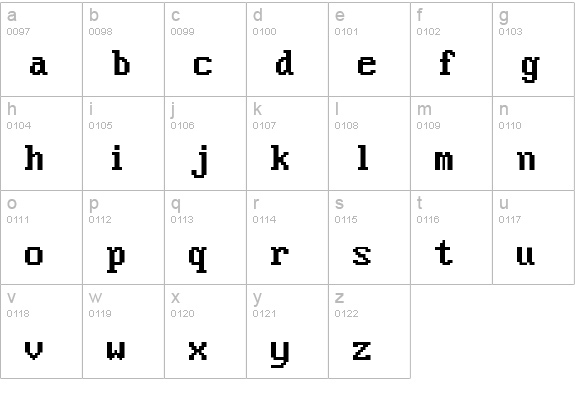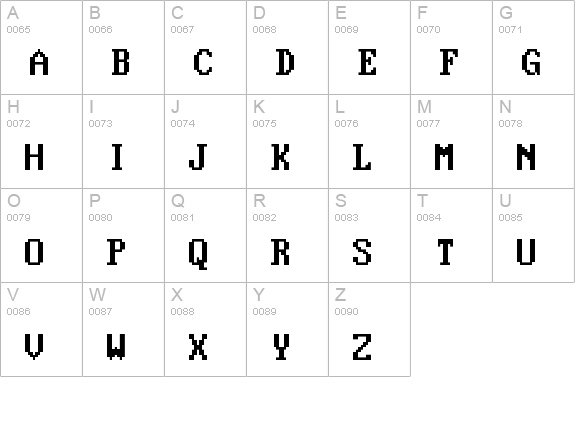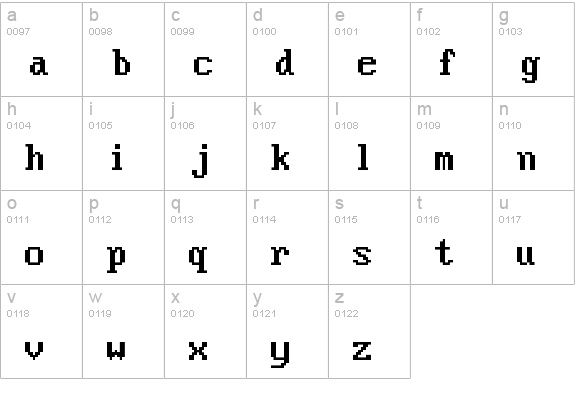
Video Regular is the standard, neutral variant in the Video typeface family \xE2\x80\x94 well suited to general body text, paragraphs, and standard typographic work.
Video Regular font is a modern and versatile typeface that adds a touch of elegance and sophistication to any design project. With its clean lines and balanced proportions, this font is perfect for creating eye-catching headlines, logos, and branding materials. One of the best features of Video Regular font is that it is available for free download at FontsMarket.com. This means that you can easily access and use this amazing font without any limitations or restrictions. Whether you are a student, a professional designer, or someone who simply loves experimenting with different typography styles, Video Regular font is a must-have in your font collection. The versatility of Video Regular font allows it to be used in a wide range of design projects, from print materials such as brochures, flyers, and posters, to digital projects such as websites, social media graphics, and presentations. Its clean and legible characters make it readable even at small sizes, ensuring that your message is effectively communicated to your audience. In addition to its aesthetic appeal, Video Regular font is also highly functional, making it a reliable choice for both personal and commercial projects. Its extensive character set includes uppercase and lowercase letters, numbers, punctuation marks, and special characters, providing you with the tools you need to create unique and engaging designs. So, whether you are a graphic designer looking to elevate your designs or a business owner in need of a professional font for your branding, Video Regular font is the perfect choice. And the best part? It is freely available for download at FontsMarket.com. Don't miss out on this opportunity to add a touch of elegance to your designs with Video Regular font.